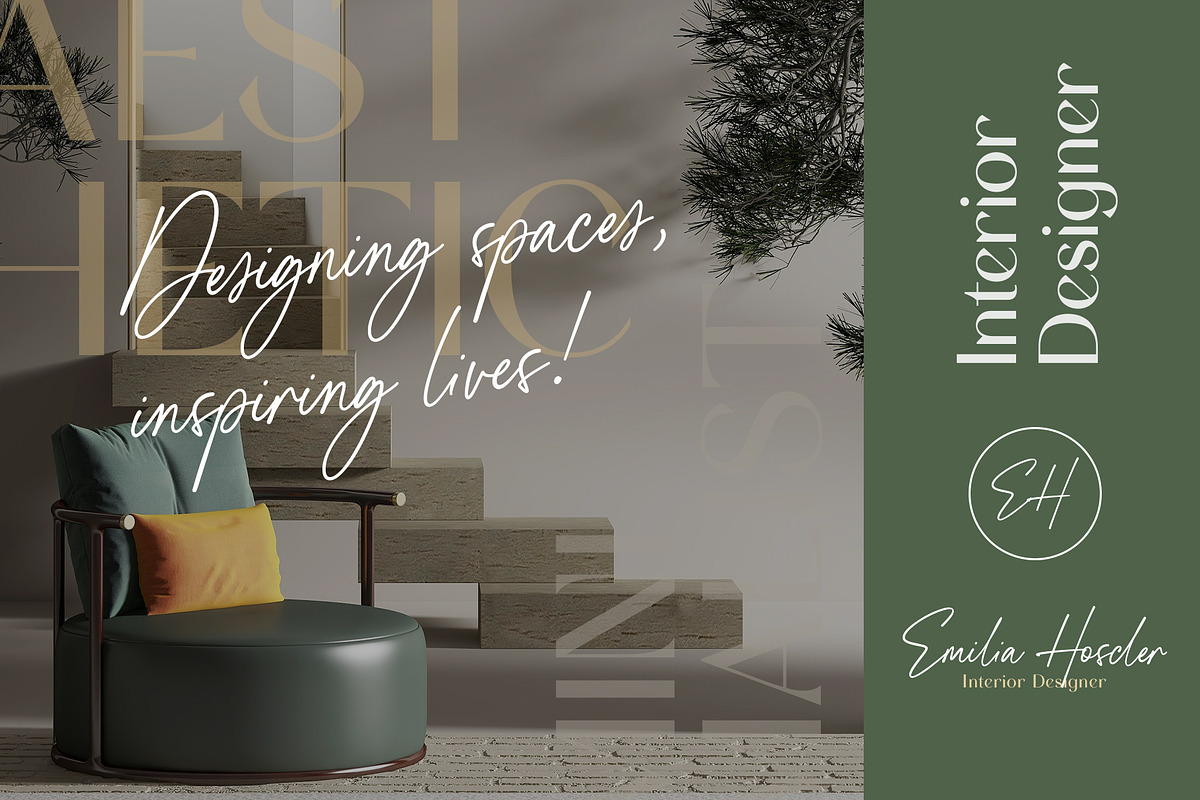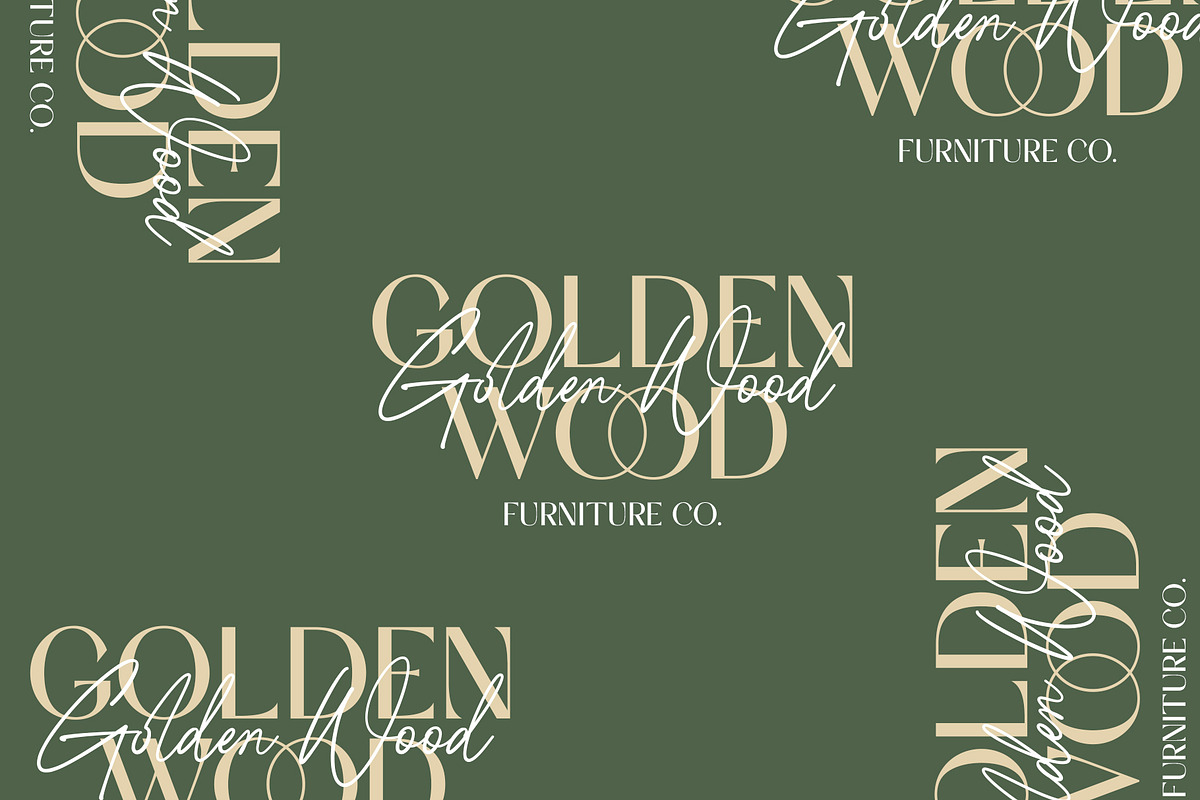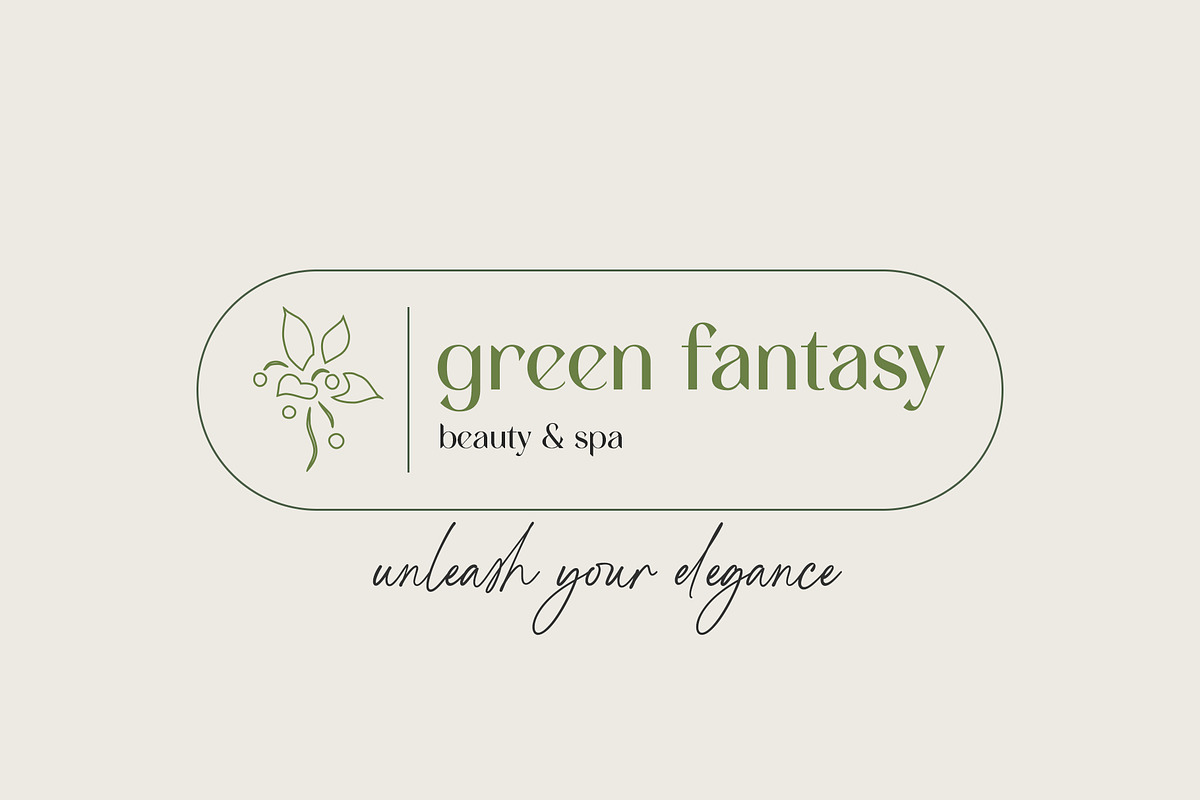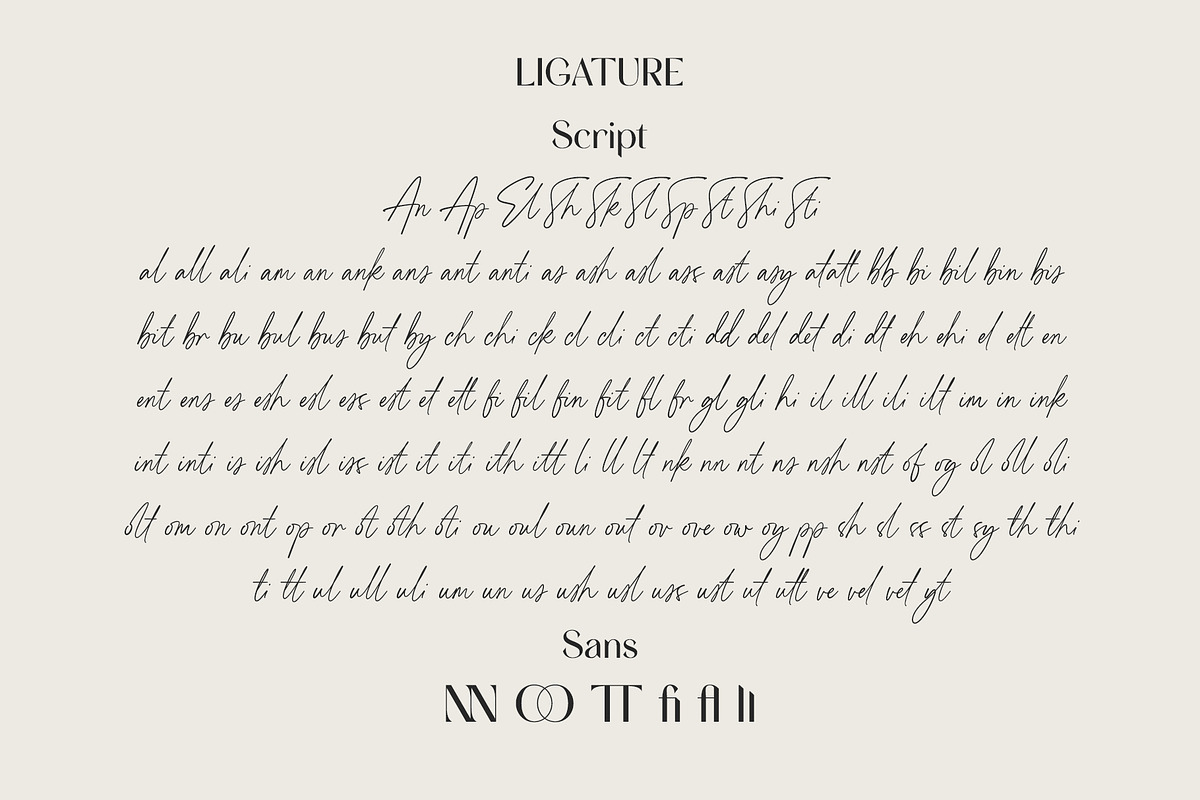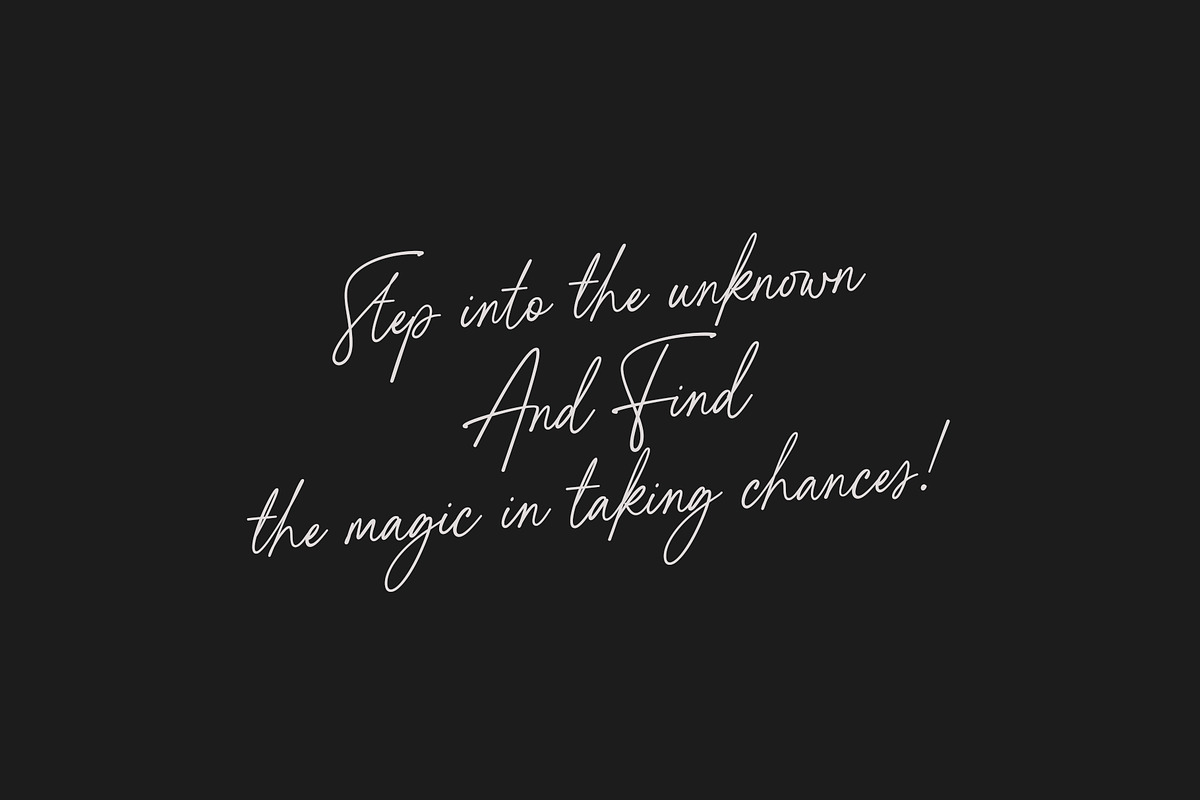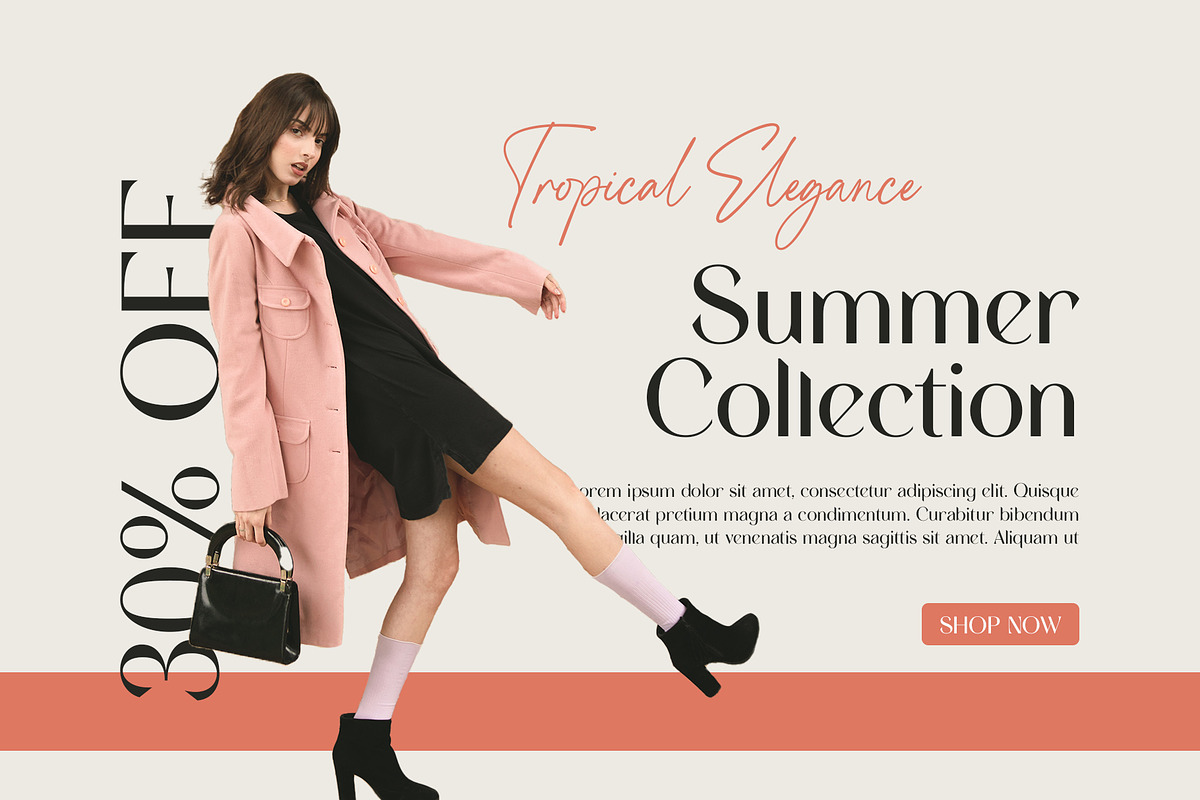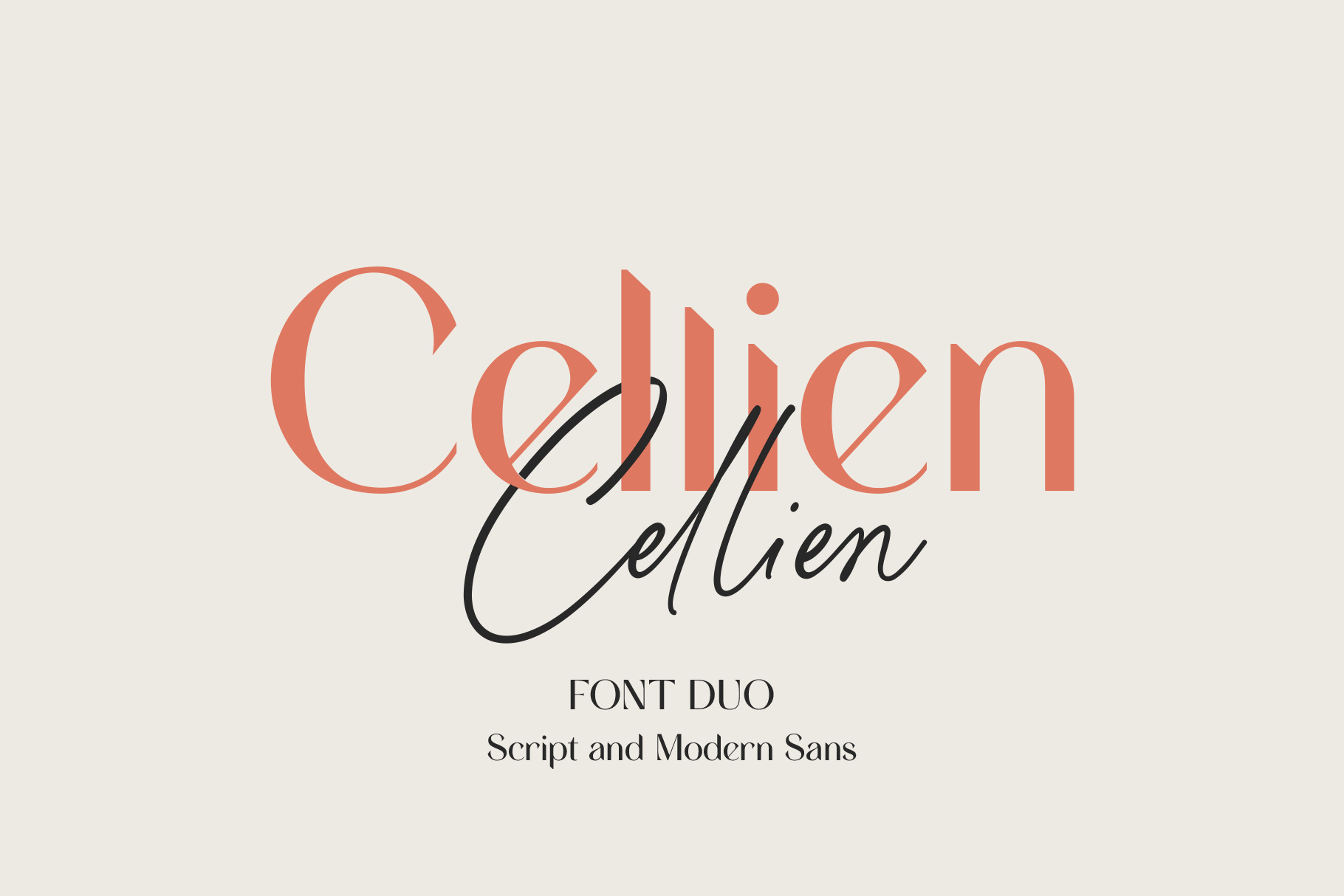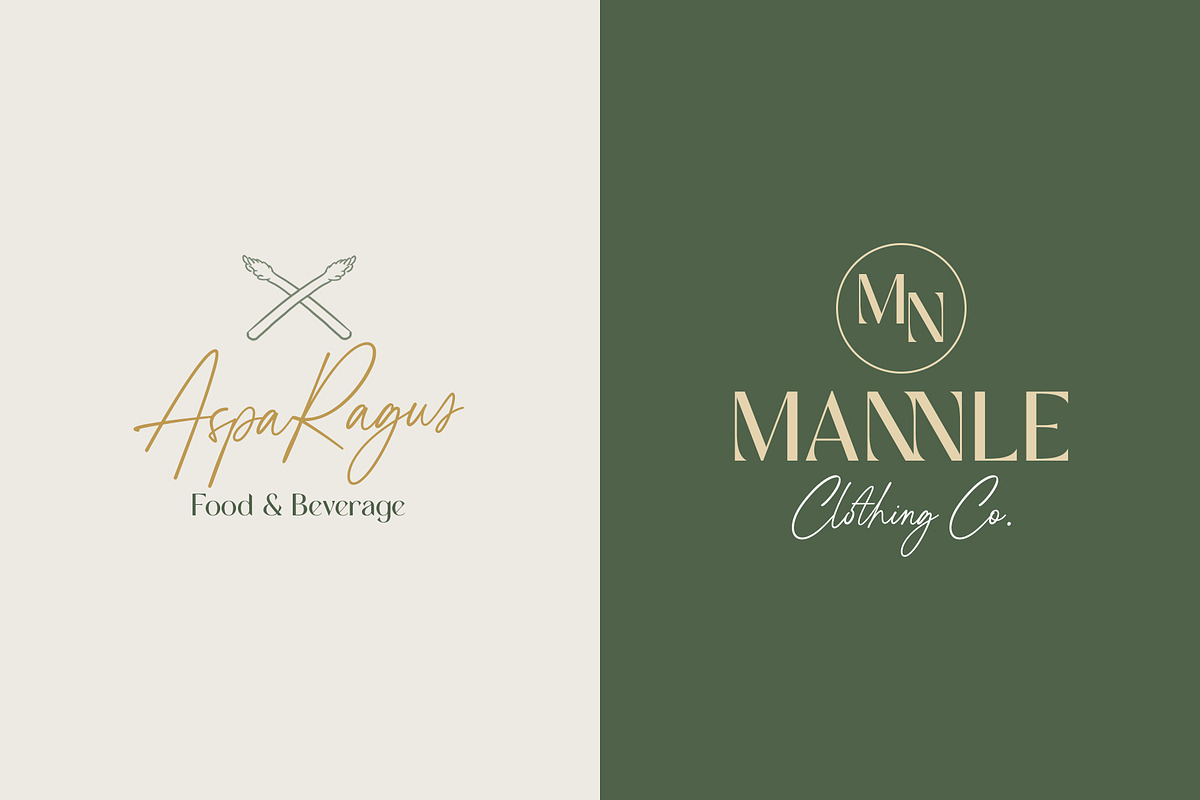
Cellien | Font Duo
Cellien Font Duo is a combination of script and sans-serif fonts, offering a perfect blend of elegance and modernity. With over 140 ligatures, the script font features natural and flowing letterforms, while the sans-serif font adds a clean and polished aesthetic. These fonts are designed to harmoniously pair together and are suitable for various design projects such as logos, branding, posters, labels, product packaging, invitation designs, and more.